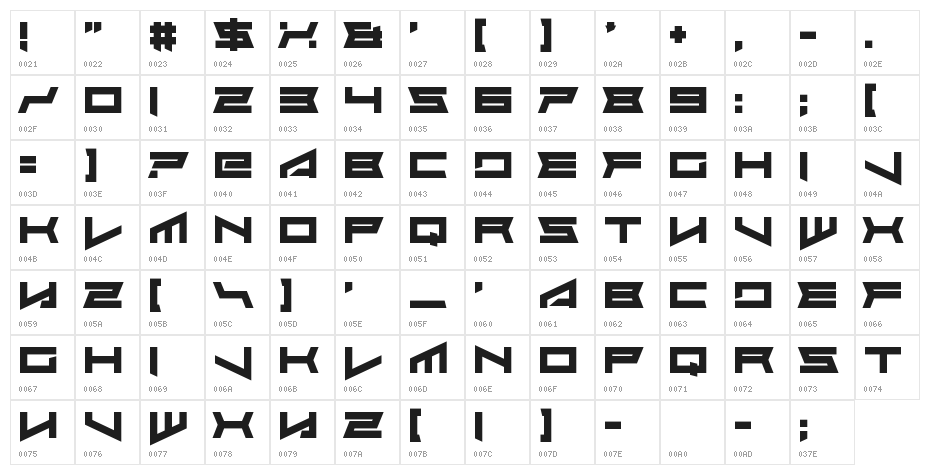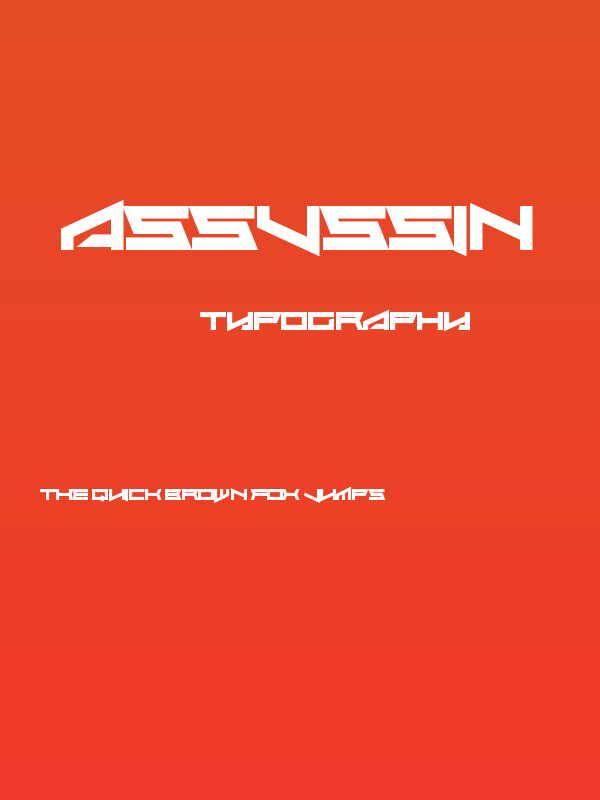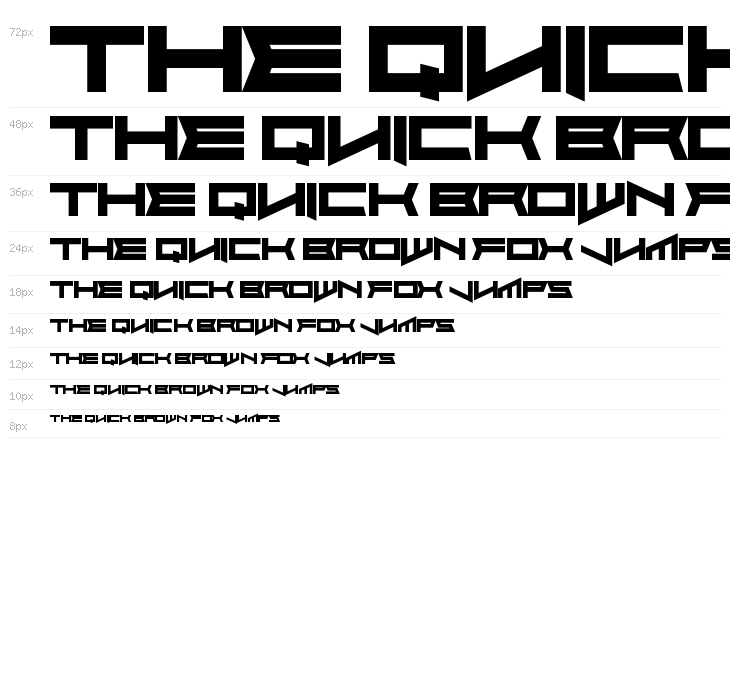
Assvssin Font
Assvssin Description
This font features a bold, futuristic design with angular and geometric shapes. Each character is crafted with sharp edges and a distinct, aggressive style that gives it a modern and tech-inspired appearance. The uppercase and lowercase letters maintain a consistent design, emphasizing symmetry and uniformity. Numbers and special characters are equally bold, integrating seamlessly with the overall aesthetic. The font's unique structure makes it stand out, ideal for projects that require a strong visual impact.